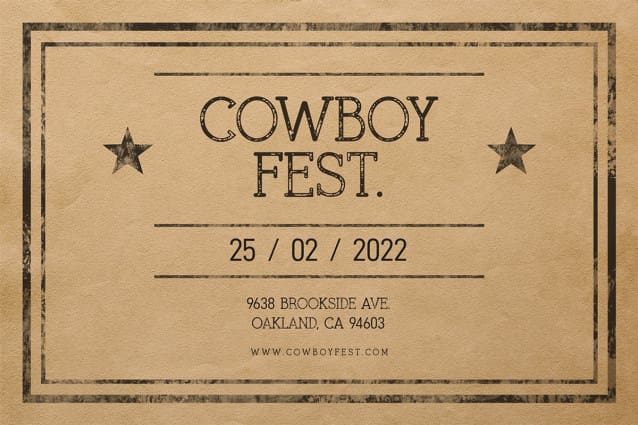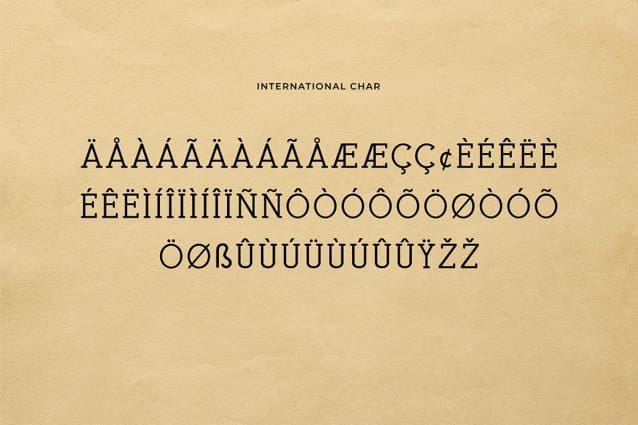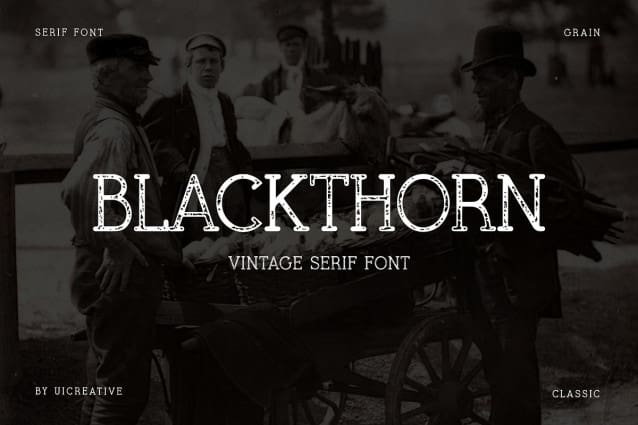
Blackthorn Vintage Font
Blackthorn Vintage Font – Vintage Serif Font. Modern Serif font that feels beautiful classy, elegant, and modern. This font is ideally suited for a wide variety of projects, such as signature, stationery, logo, wedding, typography quotes, magazine or book covers, website headers, clothing, branding, packaging design, and more. Also, fashion-related branding or editorial design displays both masculine and feminine qualities.